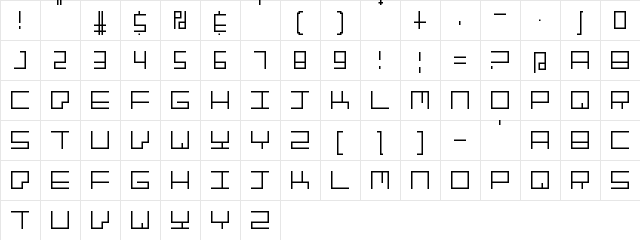
Granite Postmodern Regular
| Designer | H.G. Blakeman |
Design Context for Granite Postmodern Typeface
Granite Postmodern is a composed and adaptable typeface that performs quietly and consistently across a wide range of design contexts.